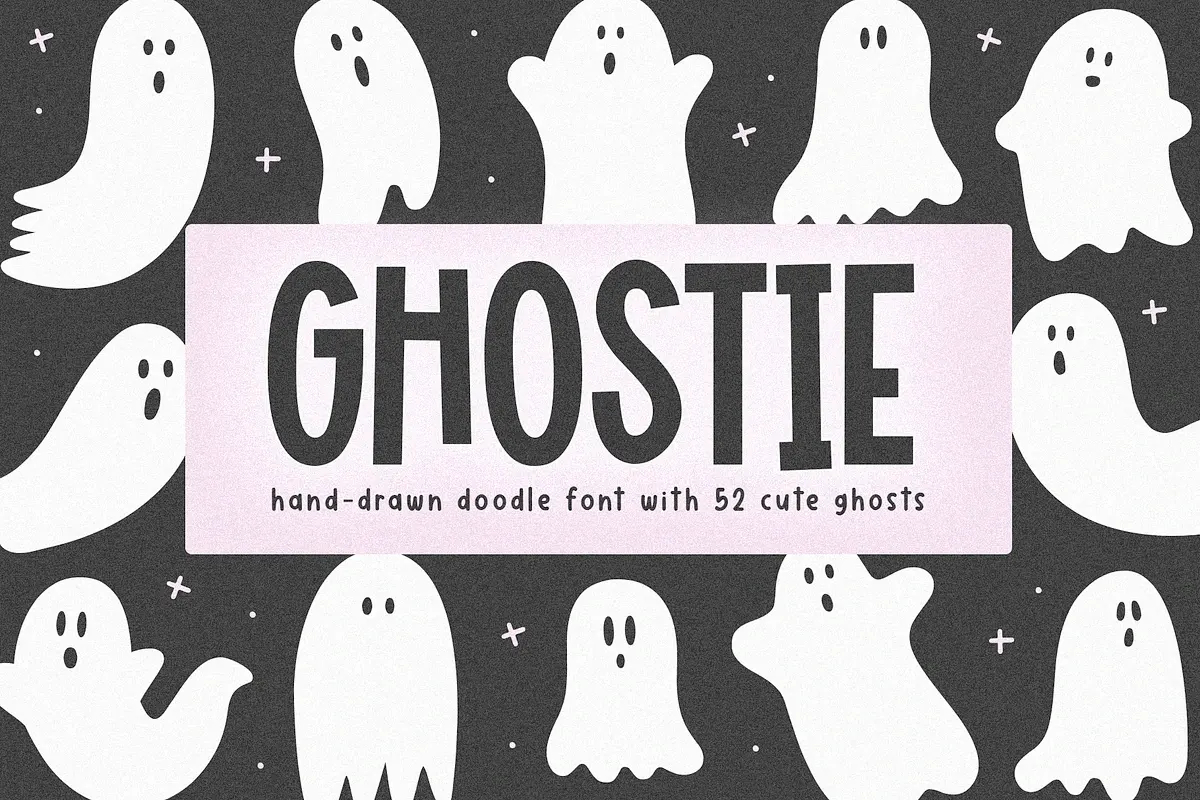
Ghostie | Halloween Doodle Font Free Download
Ghostie | Halloween Doodle Font Free Download is a fun and spooky typeface that brings playful, hand-drawn doodles to your Halloween-themed designs. With its quirky, jagged edges and eerie charm, Ghostie is perfect for creating festive invitations, posters, party graphics, and spooky branding.
Ghostie | Halloween Doodle Font Free Download adds a fun, mischievous vibe to your typography, making it ideal for all things Halloween. Whether you're designing event flyers, creating a themed logo, or adding spooky flair to social media posts, this font brings a lighthearted yet eerie feel to your designs. Download it today and make your Halloween projects come to life with the quirky style of Ghostie!